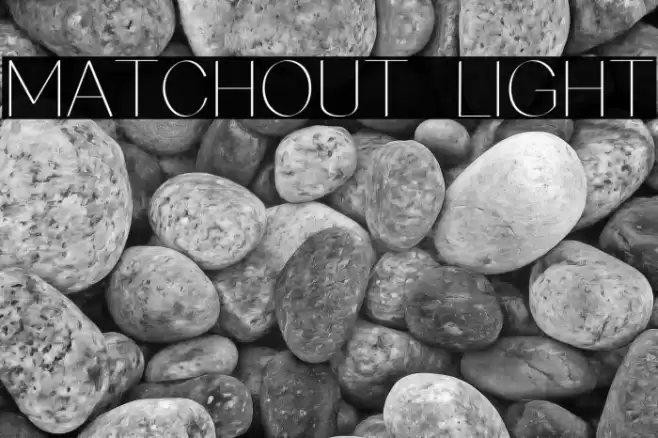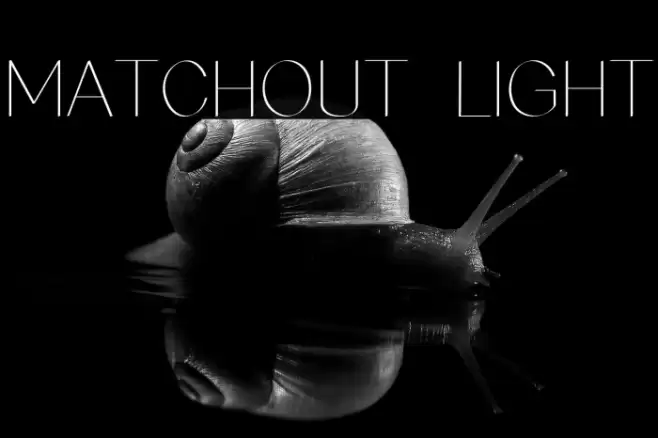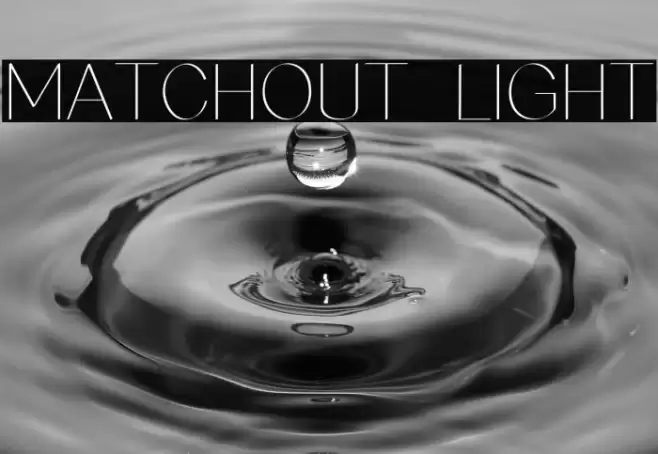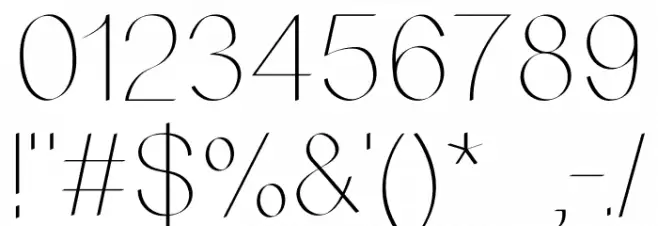
MATCHOUT LIGHT Font
MATCHOUT LIGHT Description
This font features a clean and modern design with a light and airy feel. The characters are thin and elongated, giving it a sleek and elegant appearance. The uppercase letters are tall and uniform, while the lowercase letters maintain a consistent height, contributing to a harmonious look. The numerals are clear and easy to read, with a uniform stroke width that matches the letters. Special characters are designed with the same minimalist approach, ensuring consistency throughout the font. This font's simplicity and clarity make it versatile for various design applications.
A clean, modern, and light font with sleek, elongated characters from Uncategorized fonts.
- Proposed Projects: Ideal for modern branding, minimalist design projects, editorial layouts, and digital interfaces.